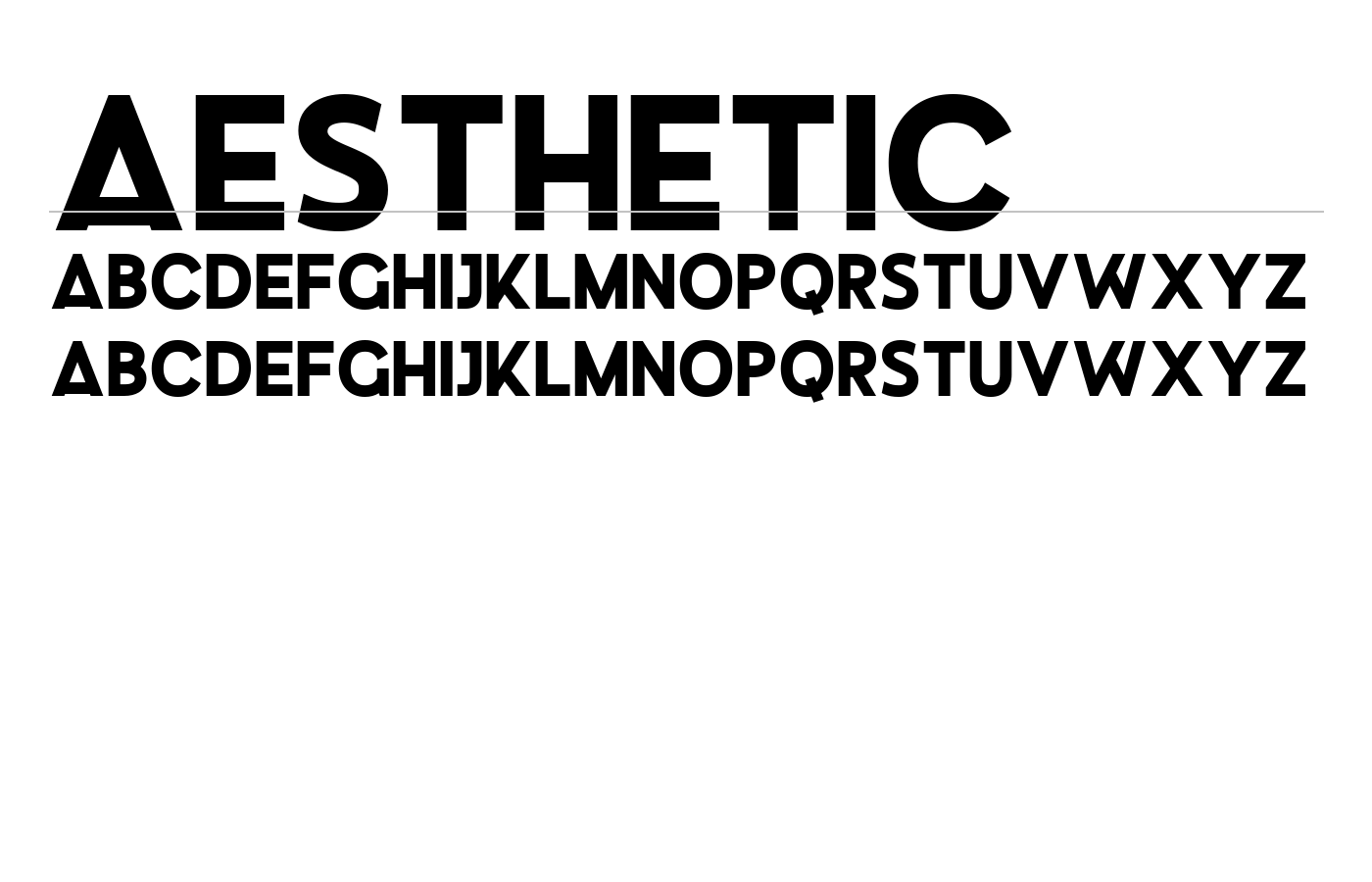
Aesthetic Font is a bold, geometric sans serif typeface with a strong, modern presence and clean lines. Its high x-height and uniform stroke weight give it excellent readability and a confident, contemporary feel, making it ideal for impactful headlines, branding, and editorial design. This font works well where clarity and a stylish, urban vibe are needed to communicate strength and modernity.
Aesthetic Font
About Aesthetic Font